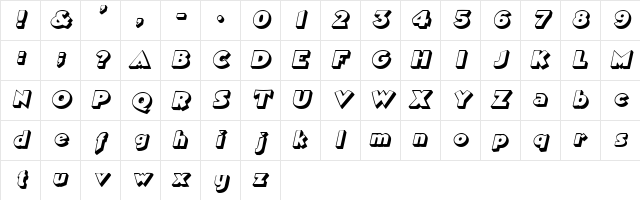
Geisha Bold Italic
Design Context for Geisha
Geisha is a composed and adaptable typeface that performs quietly and consistently across a wide range of design contexts. The slanted form adds forward momentum and visual energy. Its bold stroke weight gives it real presence on the page.
Pro Tip: Use Geisha for emphasis, pull quotes, and subheadings where its slanted energy can add rhythm to the layout.